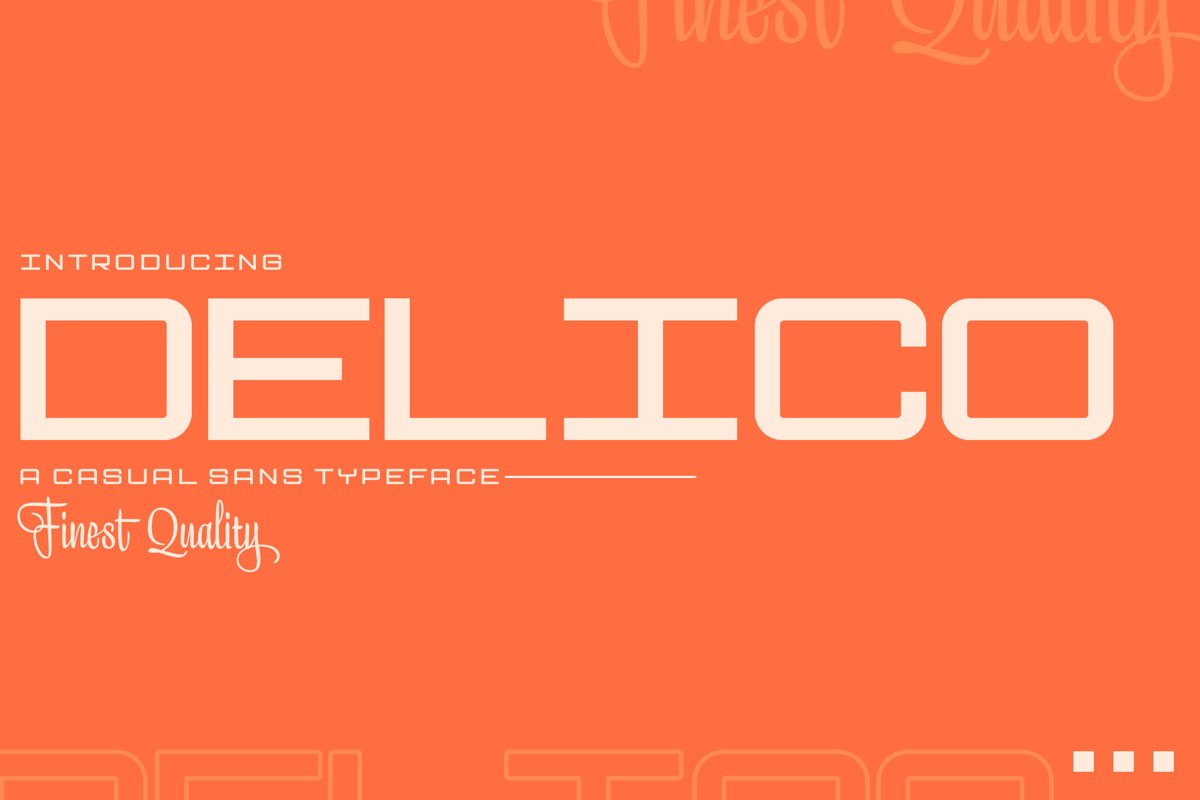
Cero is a modern slab serif typeface. Perfect for display, poster, quotes, film, book cover, business card, packaging, merchandise, branding, logo, logotype, header, title, and many more.